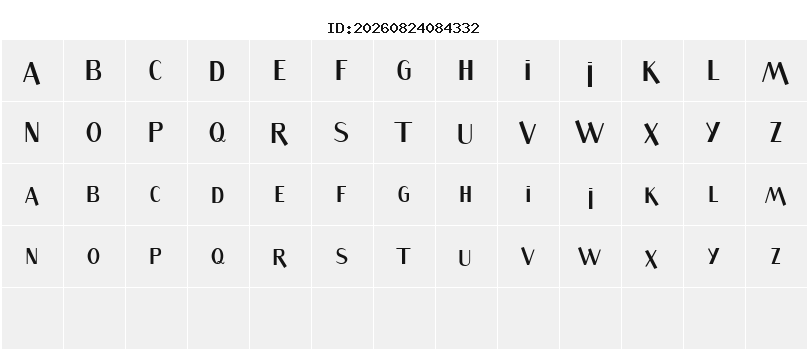
• Font Name: Sandwich
• Full Font Name: Sandwich
About Sandwich.ttf
Sandwich.ttf is a modern, elegant sans-serif font designed for ultimate readability and visual harmony. Perfect for branding, headlines, web design, and print materials.